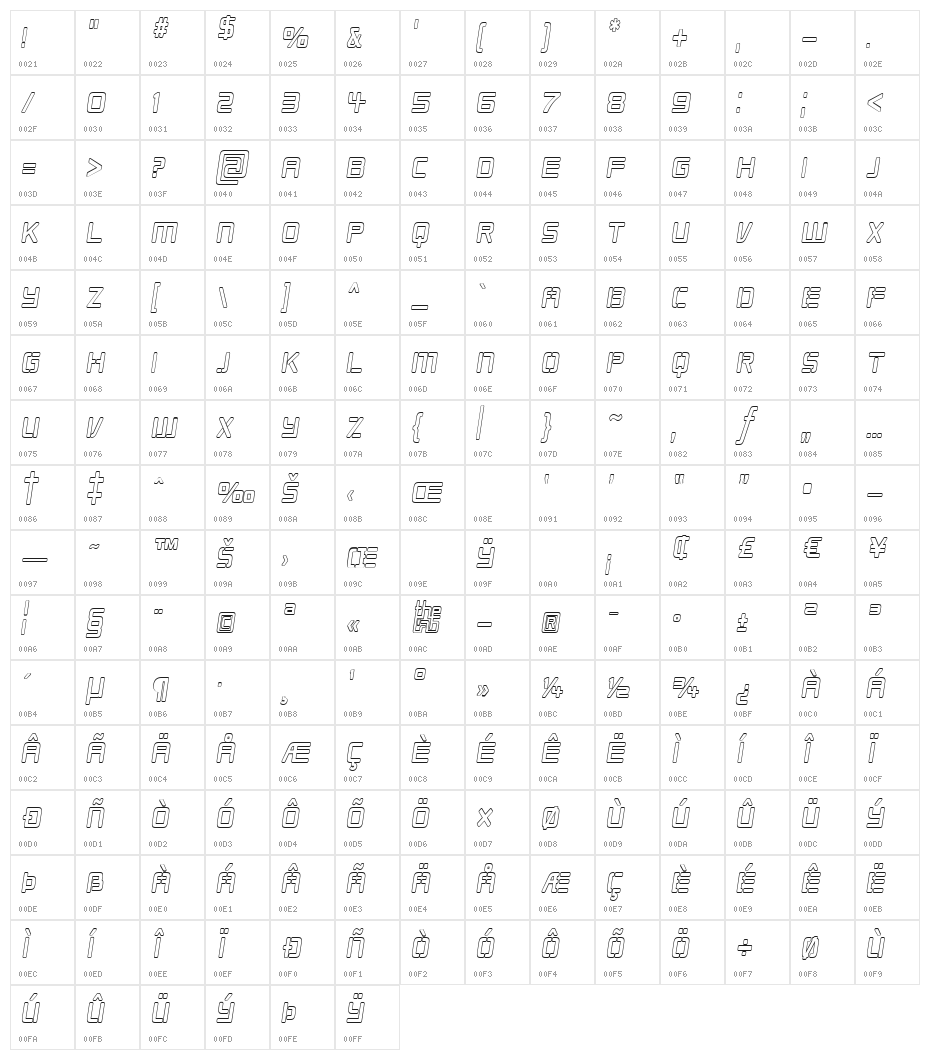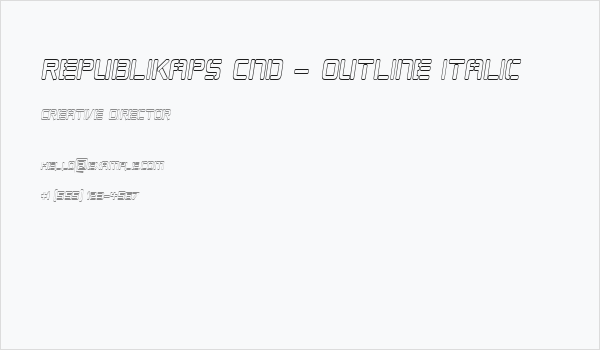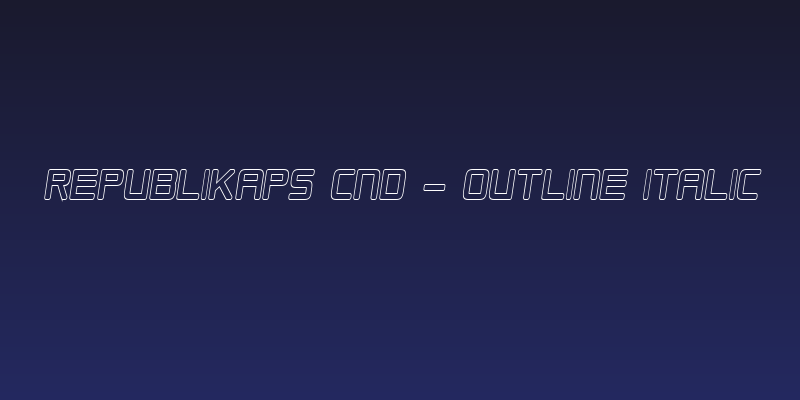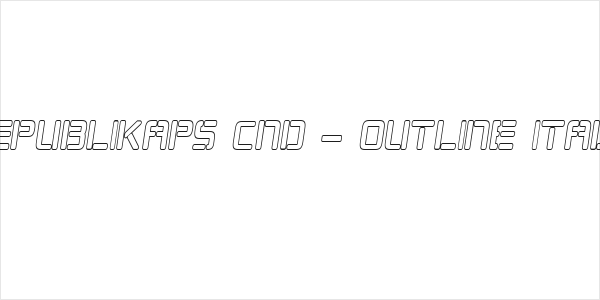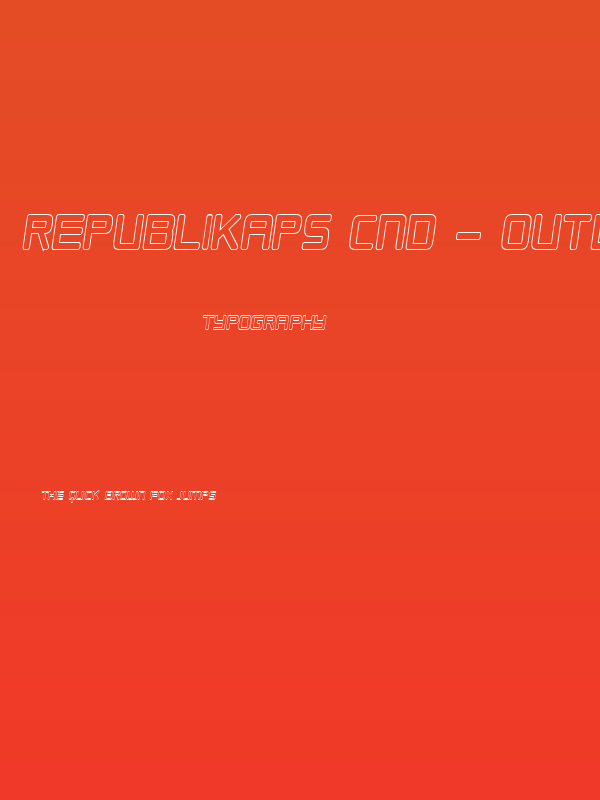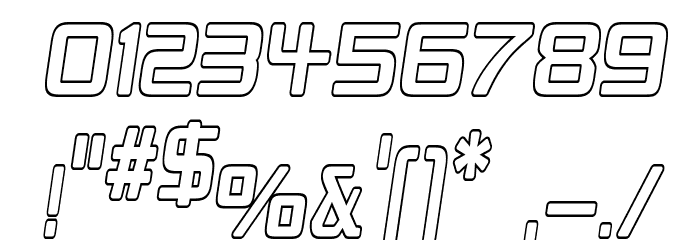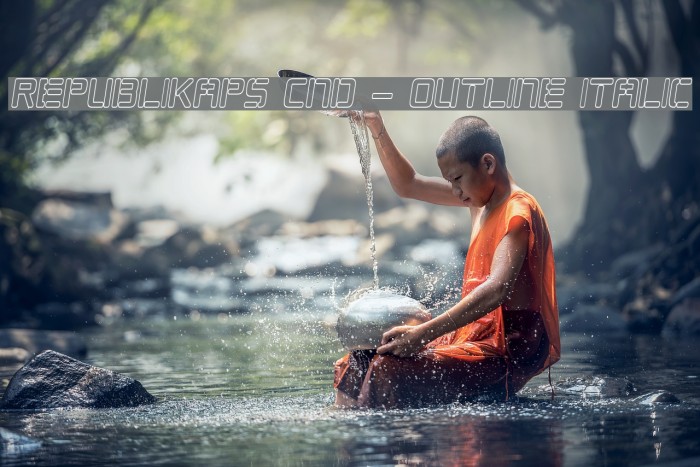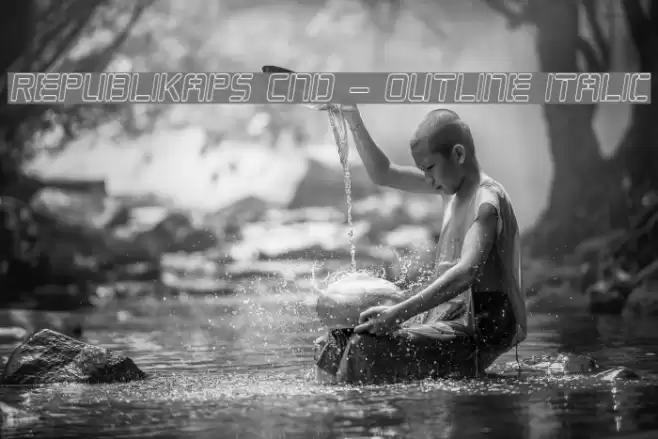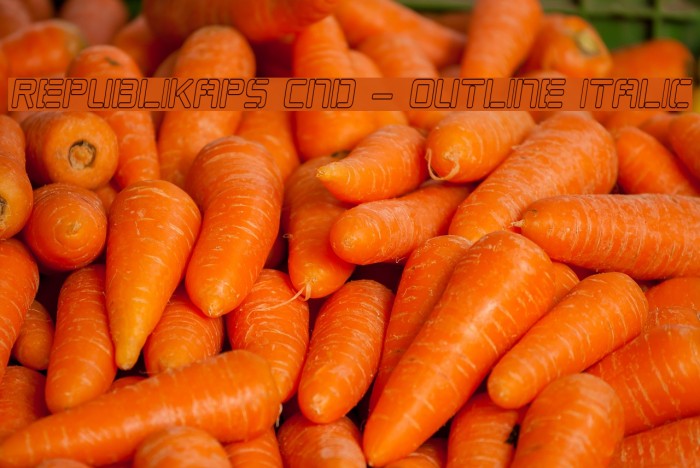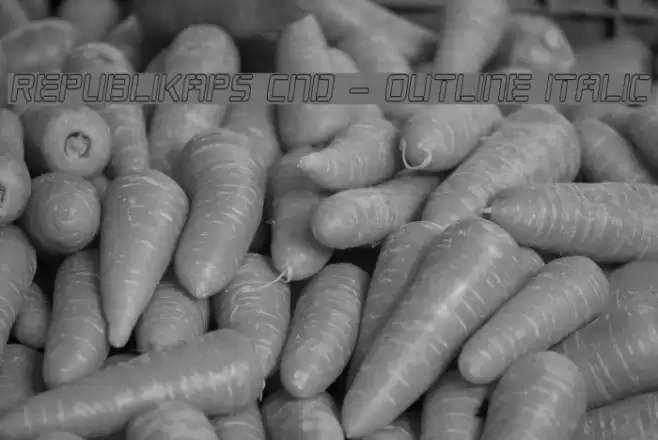
Republikaps Cnd - Outline Italic Font
Republikaps Cnd - Outline Italic Description
This font features a modern and sleek outline style with a condensed form, giving it a futuristic and technical appearance. The characters are italicized, adding a dynamic and forward-leaning aspect to the design. The uppercase and lowercase letters maintain a consistent geometric structure, while the numerals and special characters complement the overall aesthetic. The outline effect creates a sense of depth and dimension, making it suitable for eye-catching designs. Its clean lines and open spaces ensure readability even at smaller sizes, while the italic slant adds a touch of elegance and movement.
| Proposed Projects | Ideal for technology branding, futuristic posters, digital interfaces, and modern advertising campaigns. |